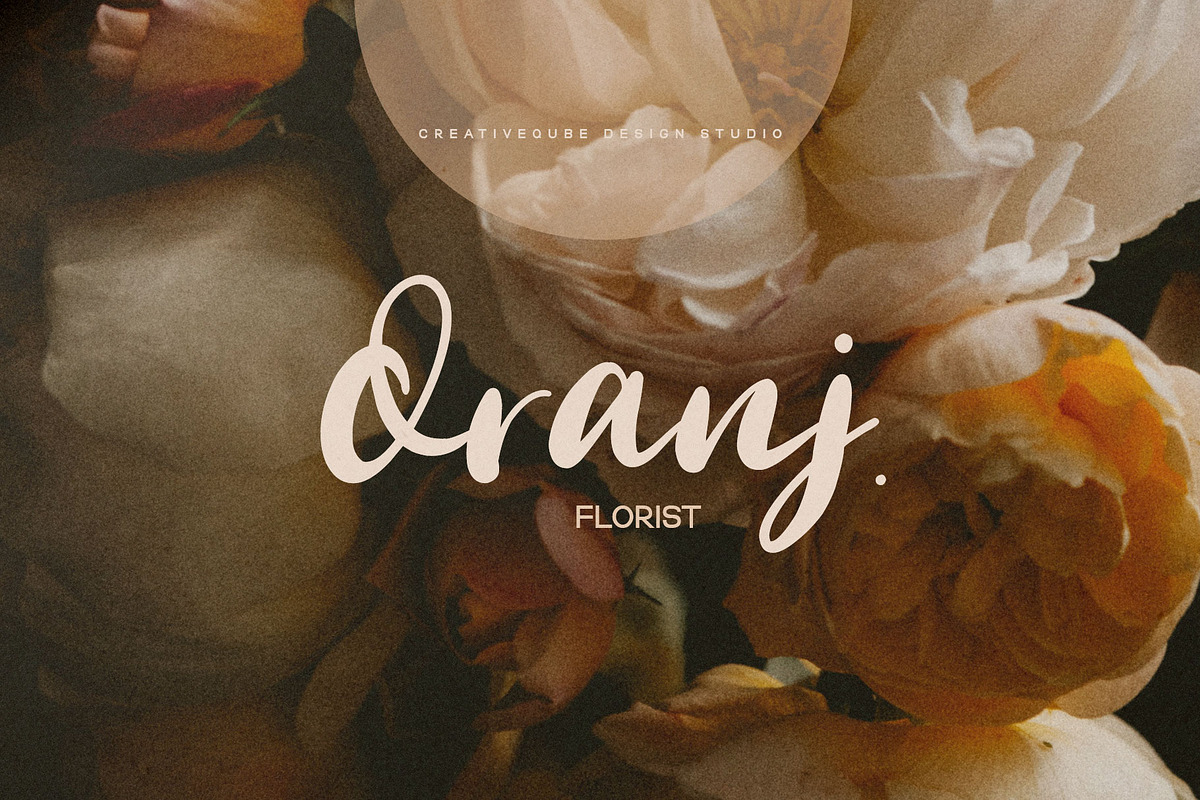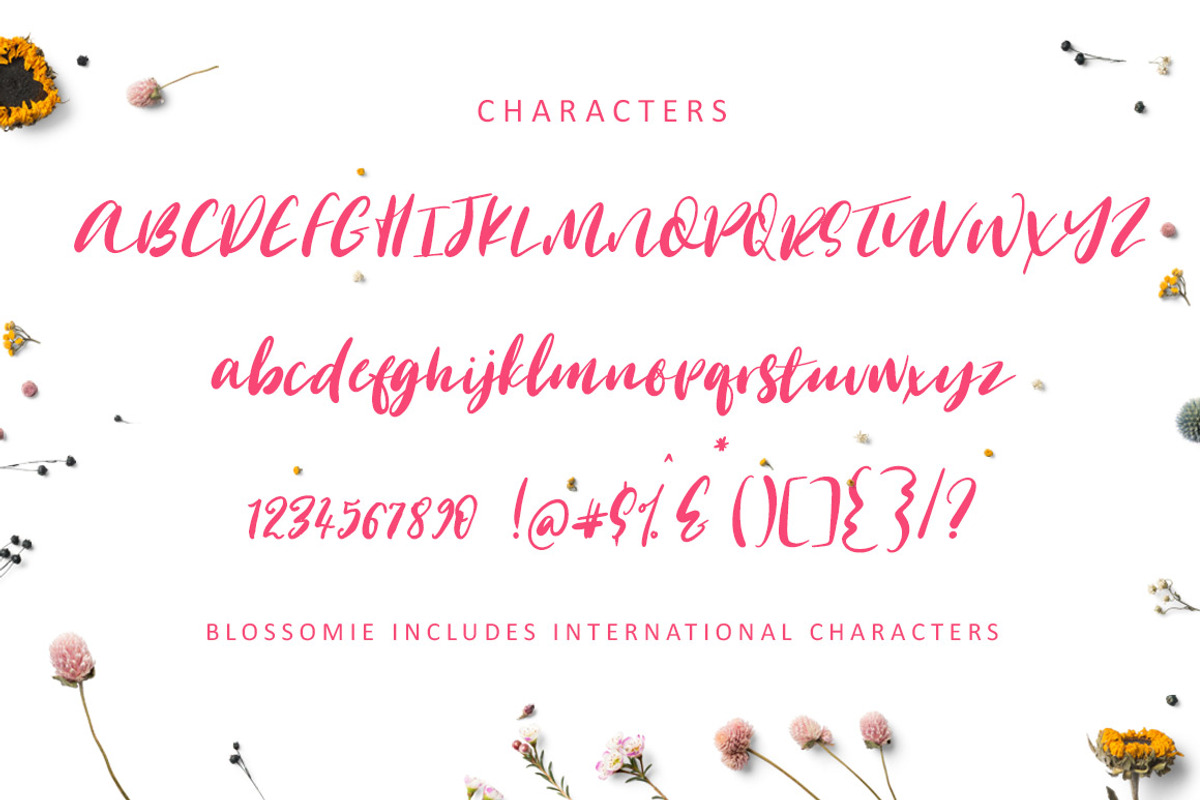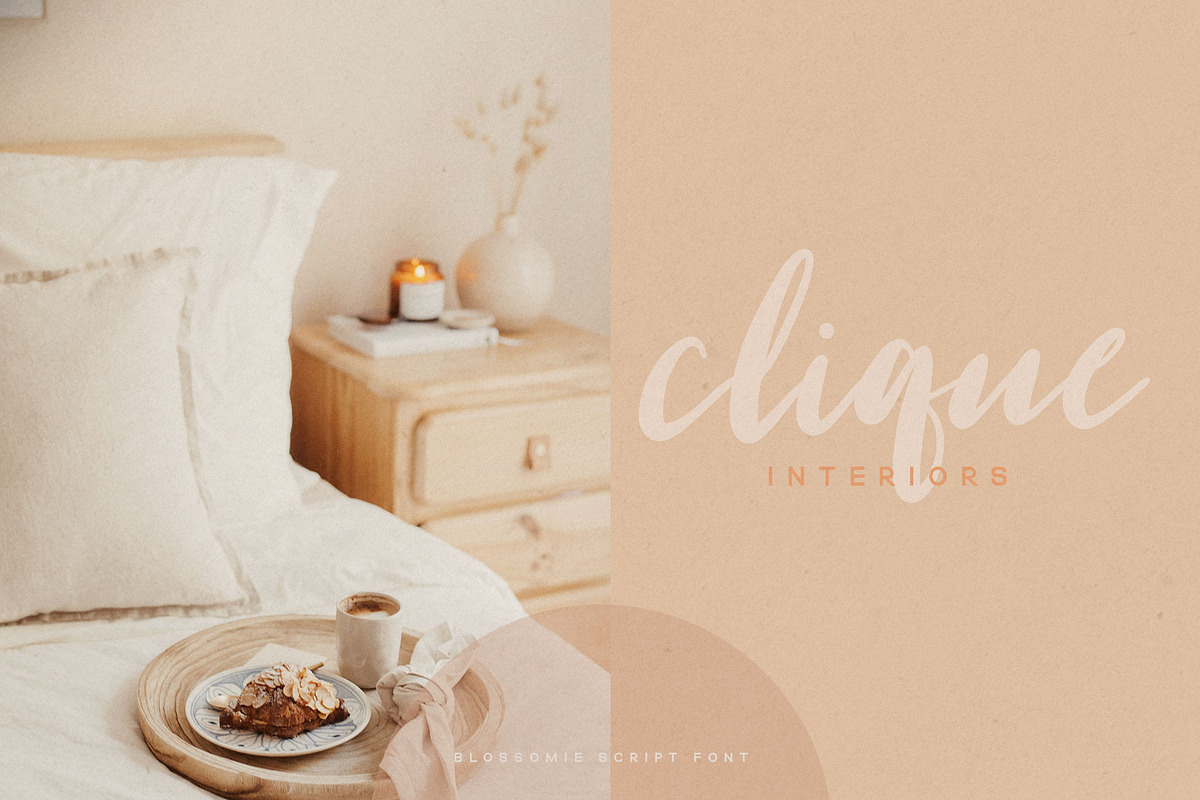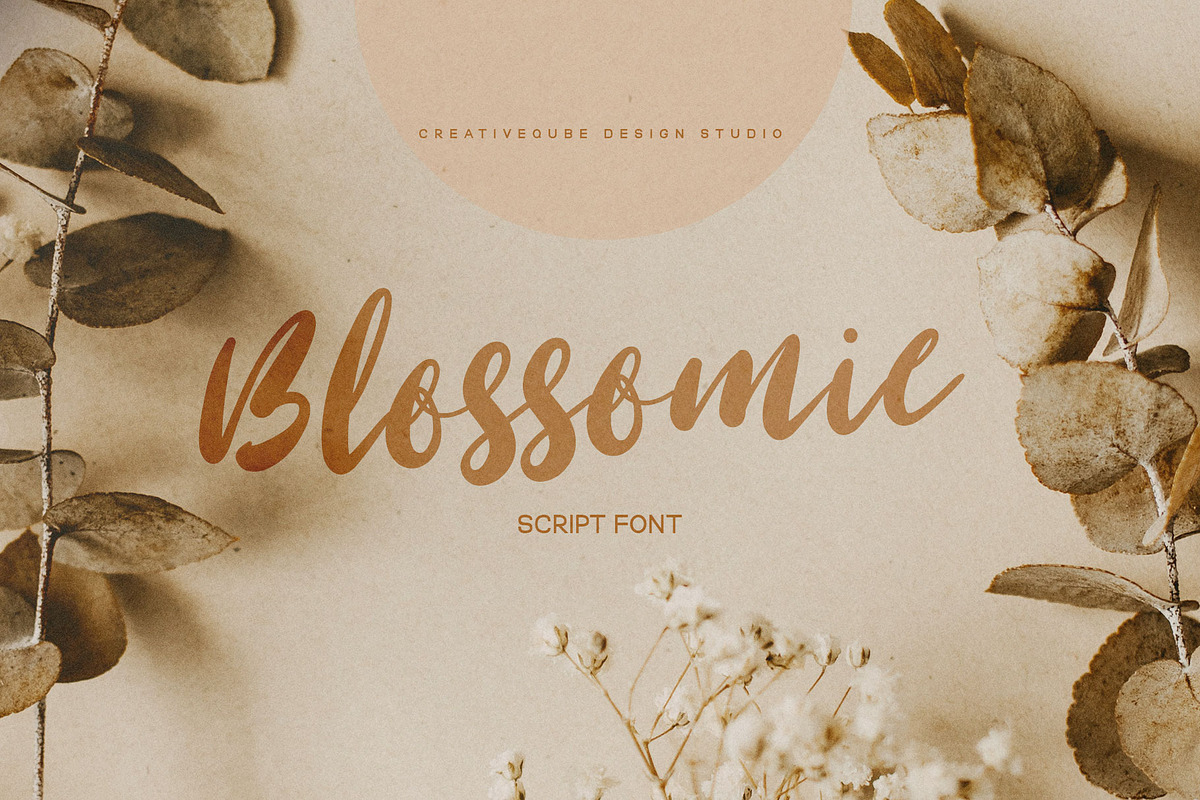
Blossomie Script Font
Introducing Blossomie! An adorable hand painted brush script font.
Blossomie supports international characters.
Blossomie Script Font by Creativeqube Design fits naturally into Branding, posters, packaging, typography.